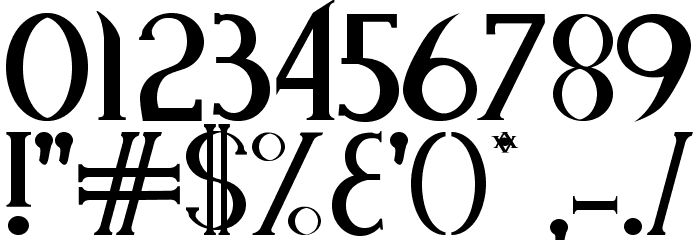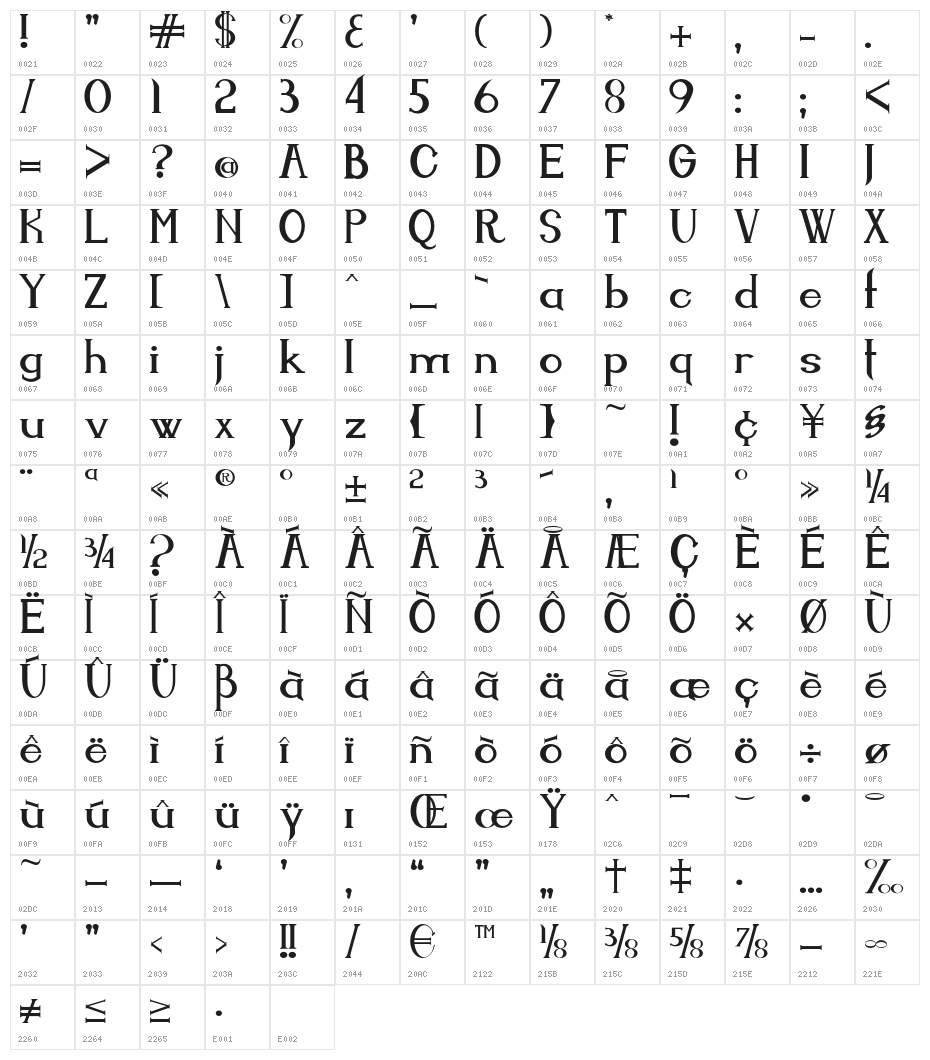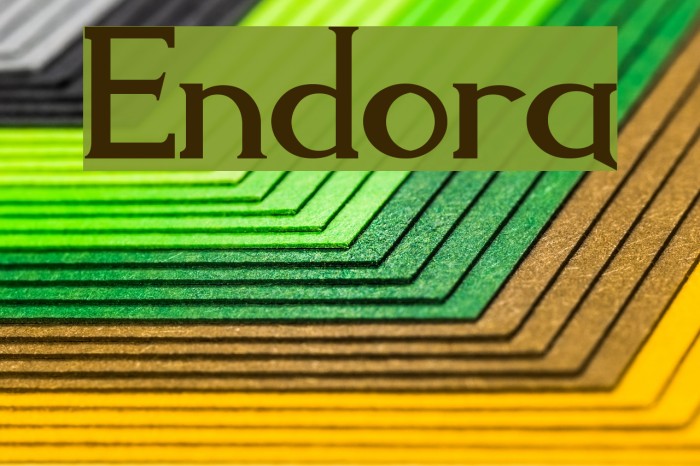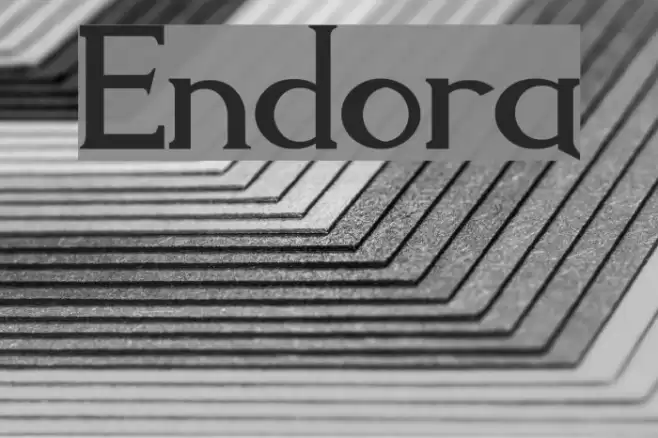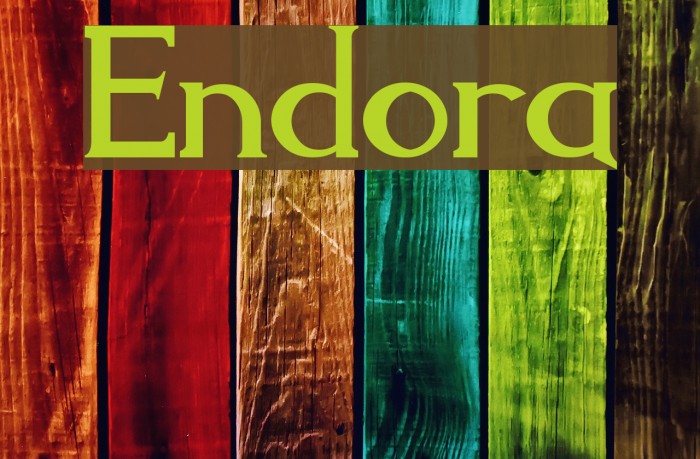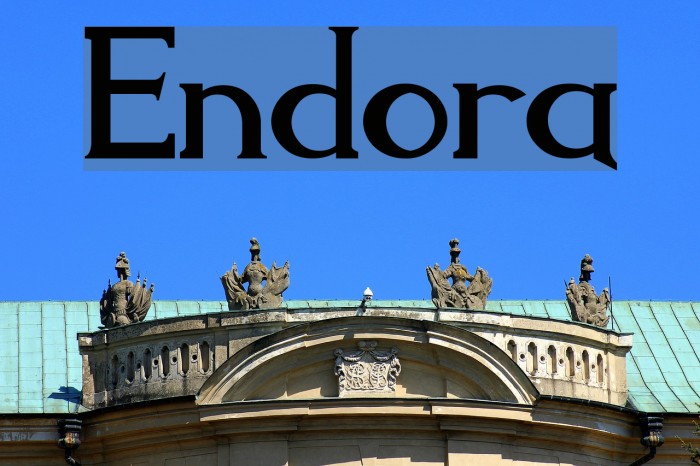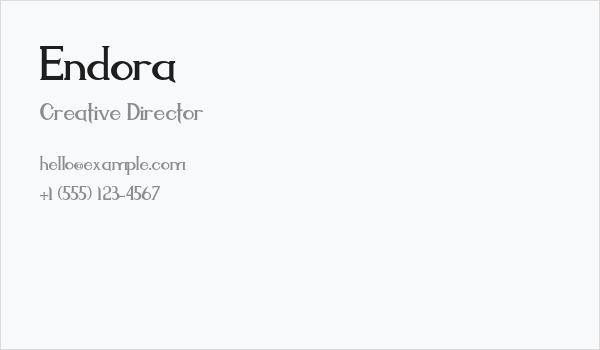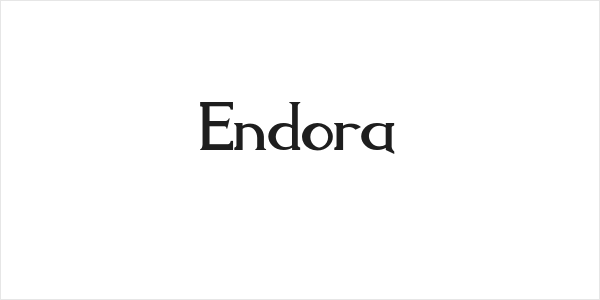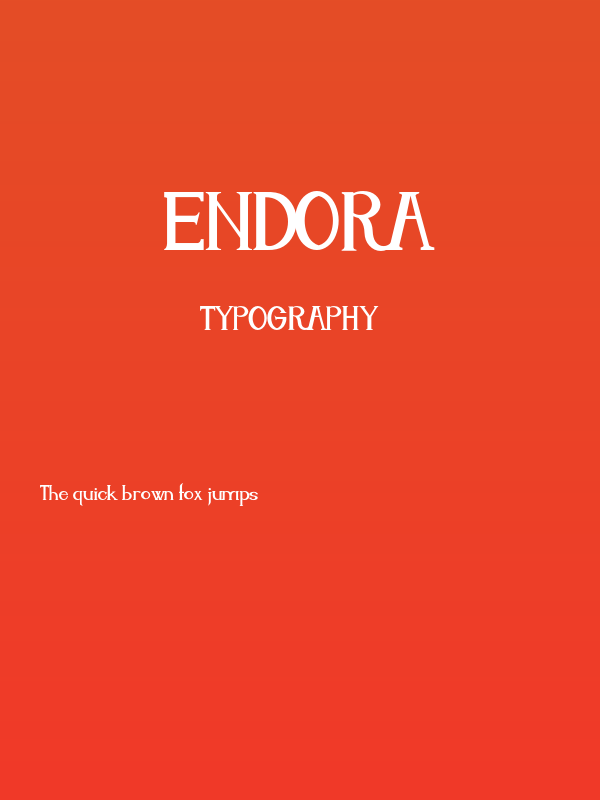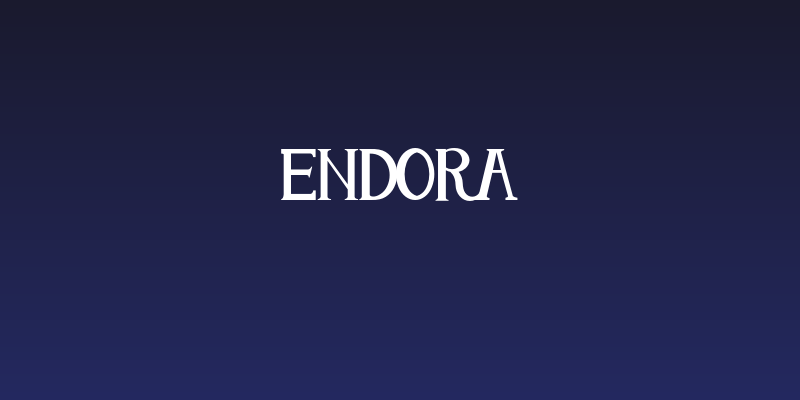
Endora Font
Endora Description
This font features a distinctive and elegant design with a touch of vintage flair. The uppercase letters are characterized by sharp serifs and a slight curvature, giving them a sophisticated and artistic appearance. The lowercase letters maintain a consistent style, with unique elements such as the curved tail on the 'g' and the elongated stem of the 't'. The numerals are bold and easily readable, with a classic touch that complements the overall design. Special characters are crafted with attention to detail, enhancing the font's decorative appeal. The font's style is both timeless and versatile, making it suitable for a variety of design projects.